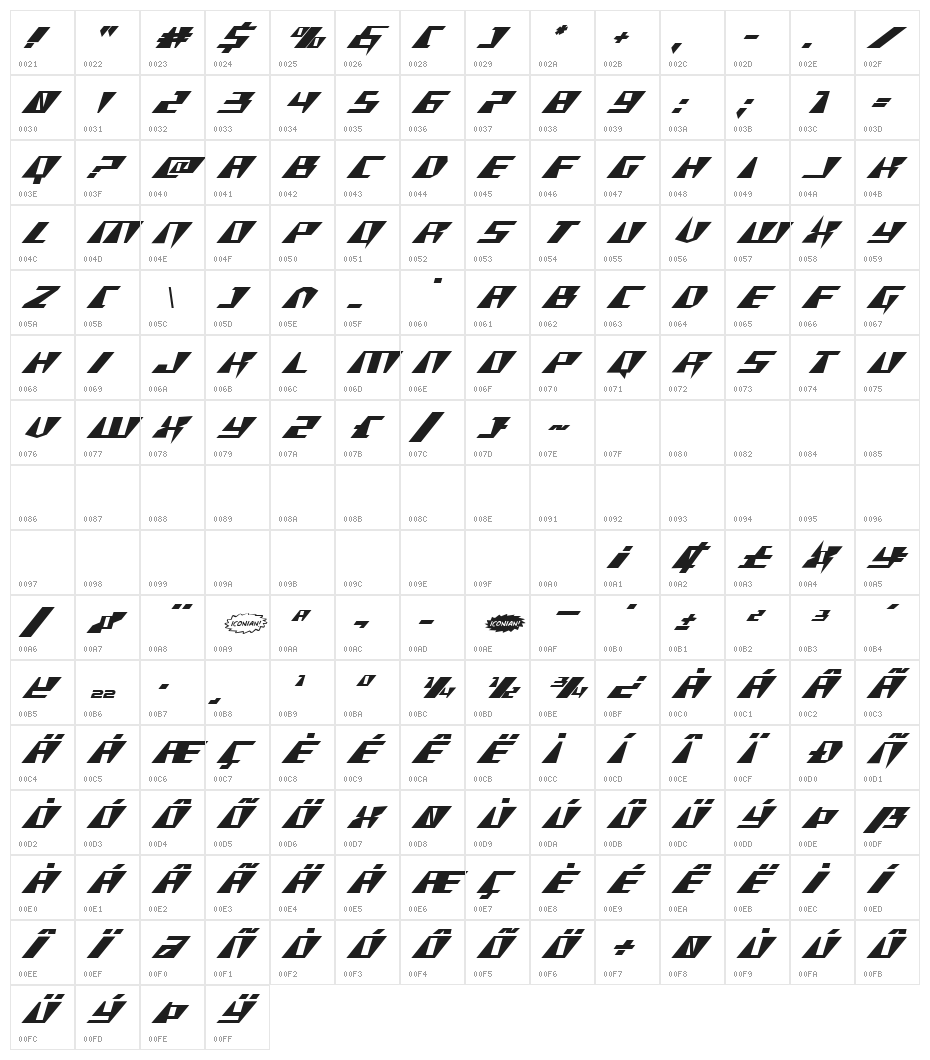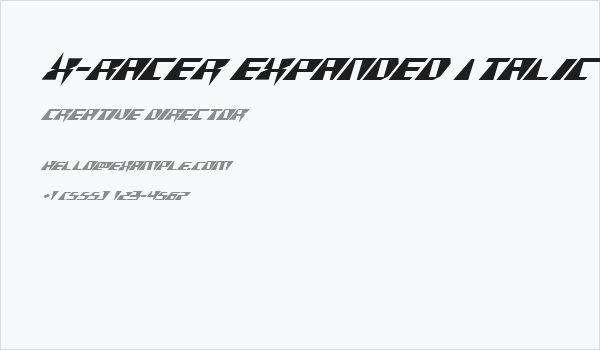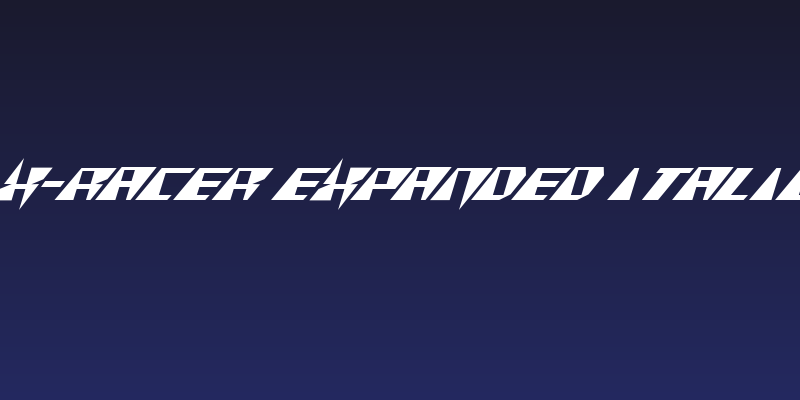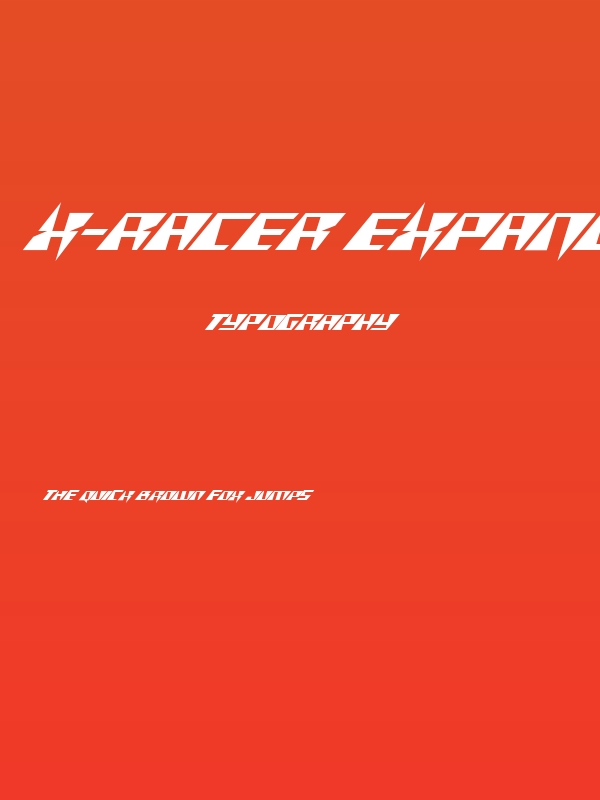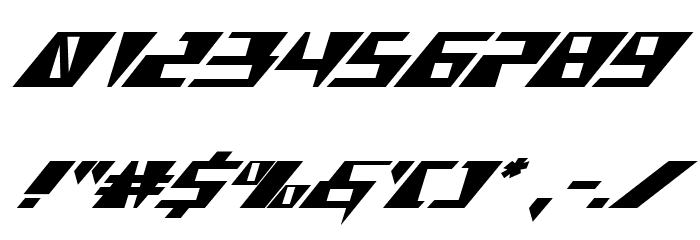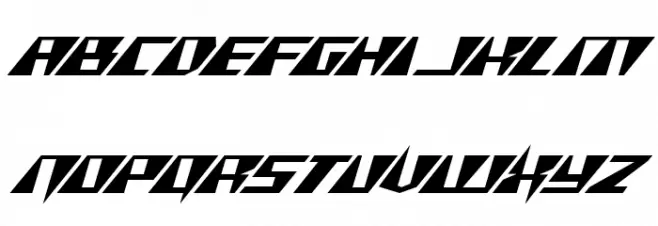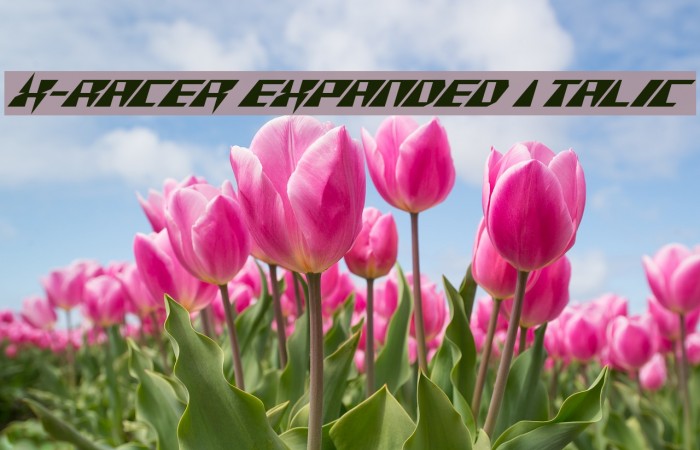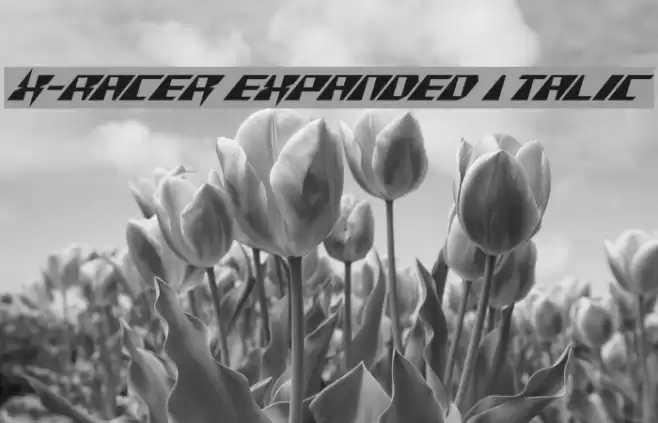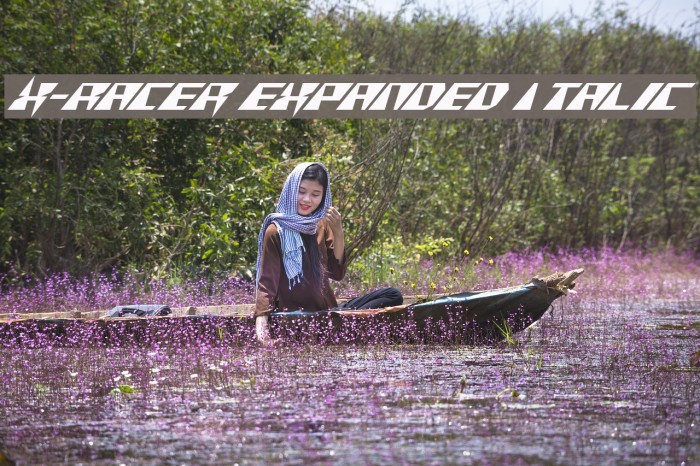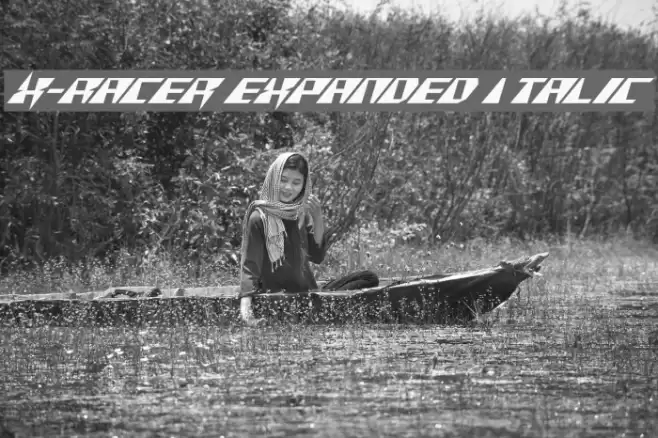
X-Racer Expanded Italic Font
| おすすめプロジェクト | Ideal for projects that require a modern and energetic look, such as sports branding, automotive designs, video game titles, and tech-related advertisements. |